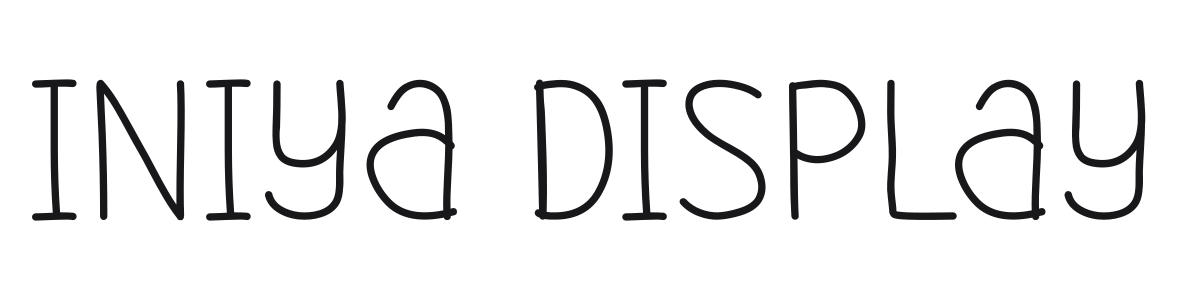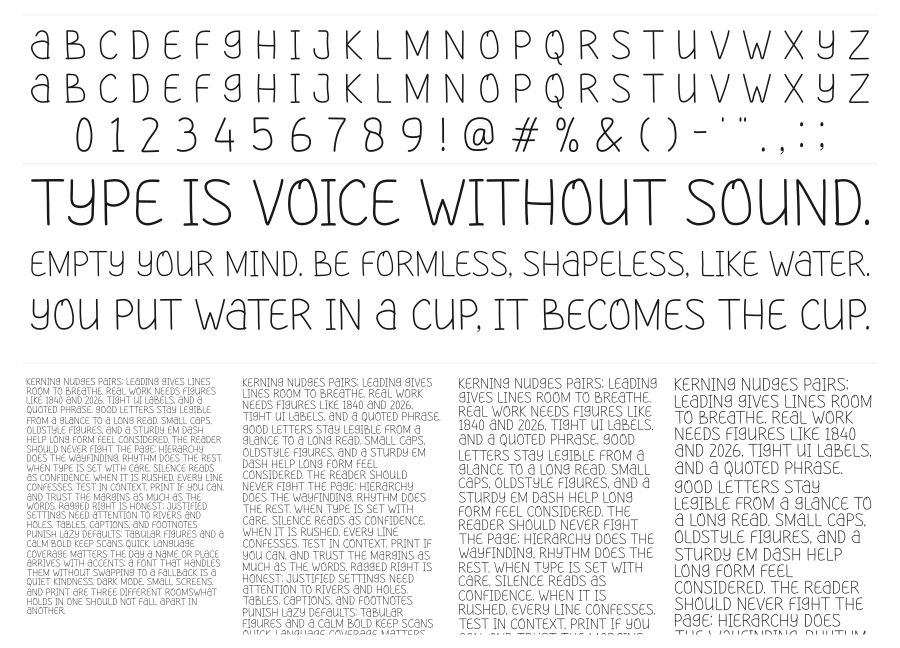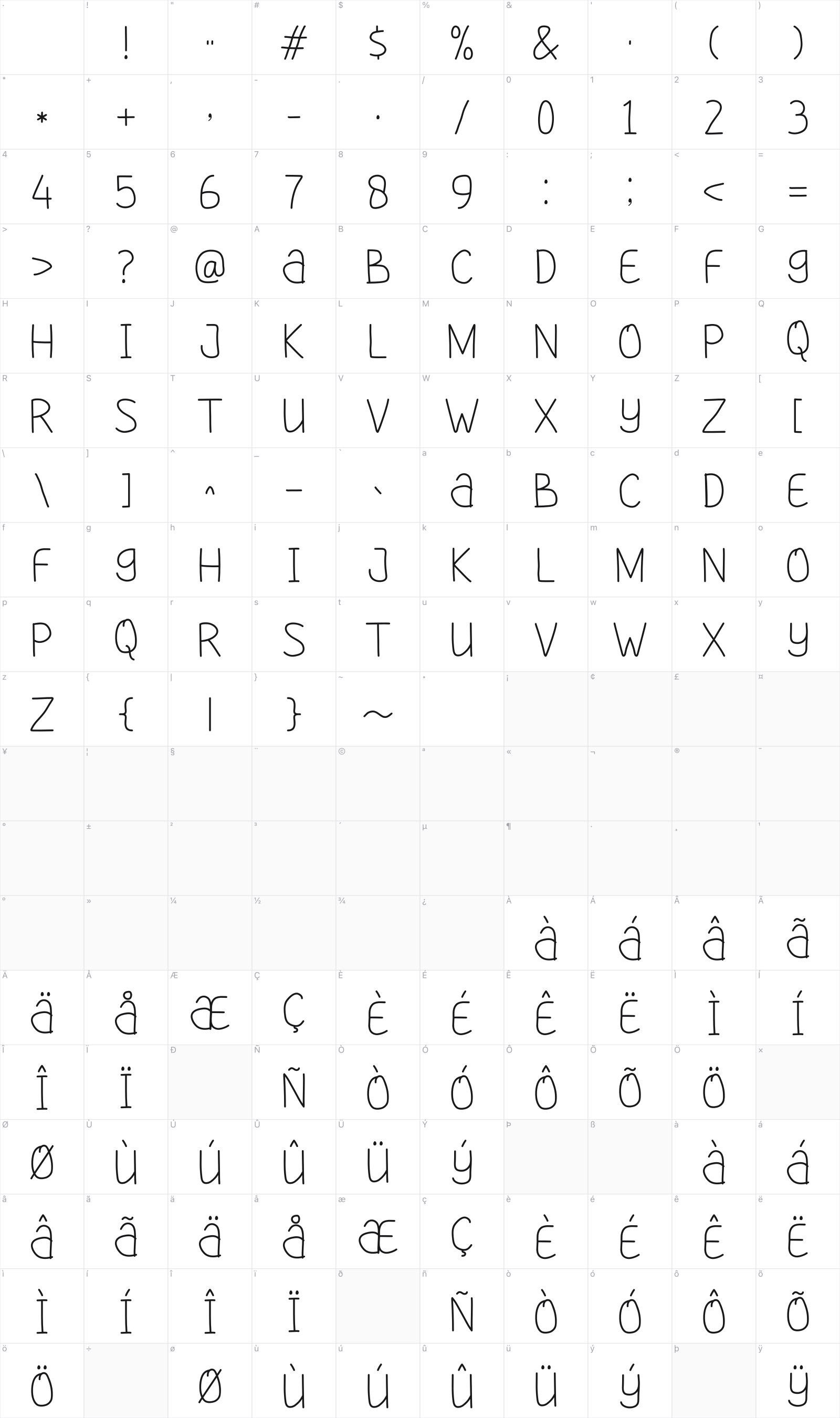
Iniya Display
Iniya Display is a tall, willowy sans-serif with an endearingly quirky personality built into its structure. Certain characters drop unexpectedly to a smaller scale within an otherwise uppercase setting, giving the font a hand-lettered spontaneity that feels neither accidental nor forced. It works well for branding and packaging where a light, approachable character is needed.